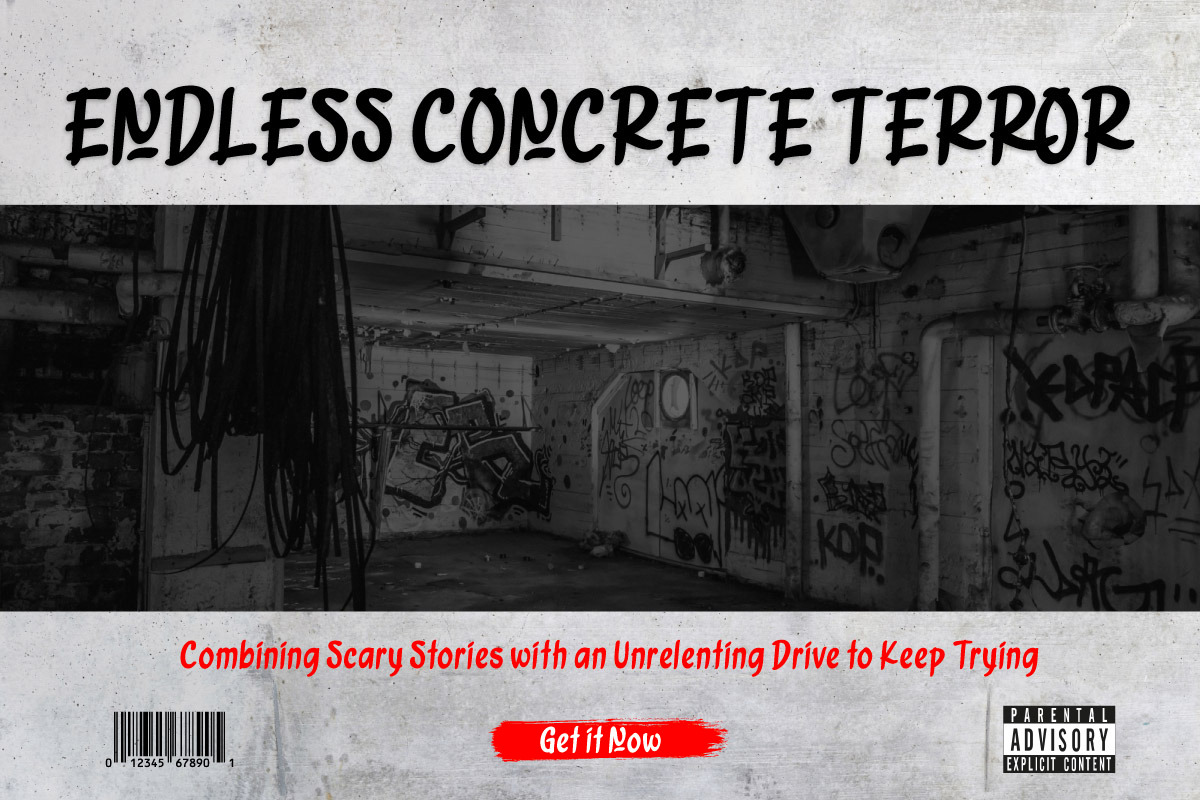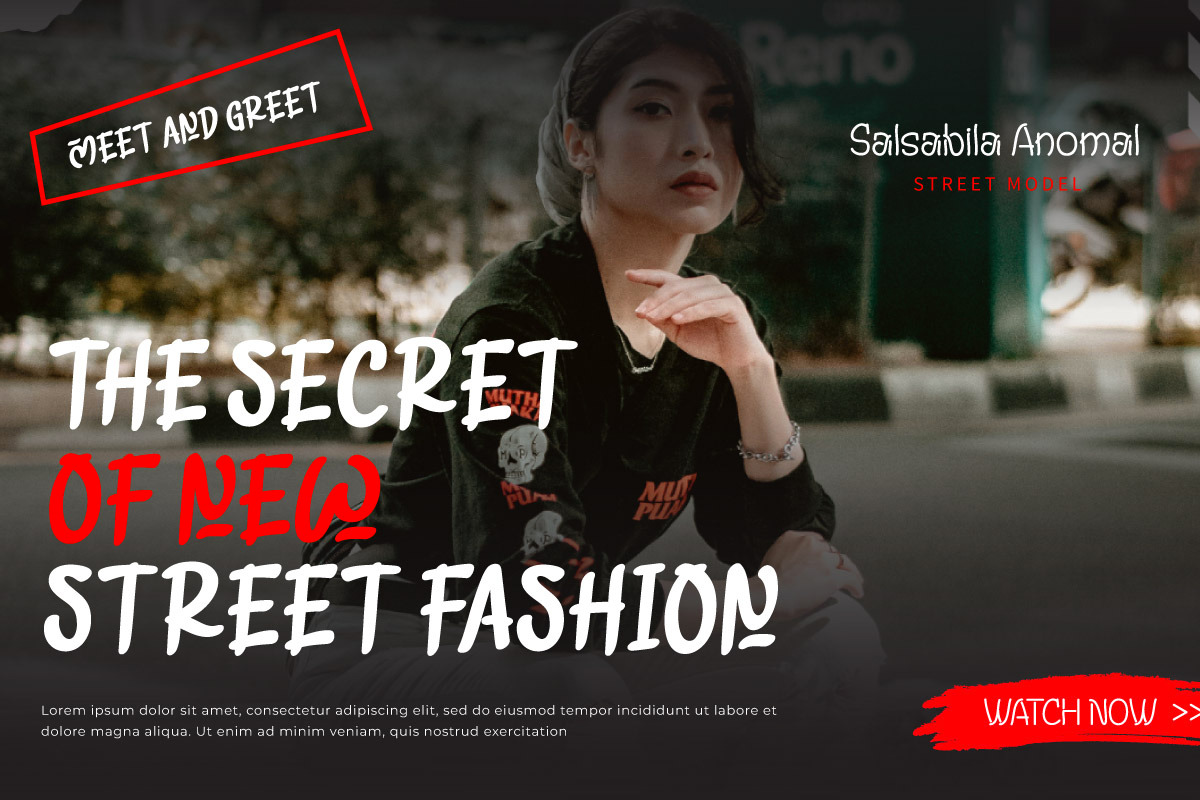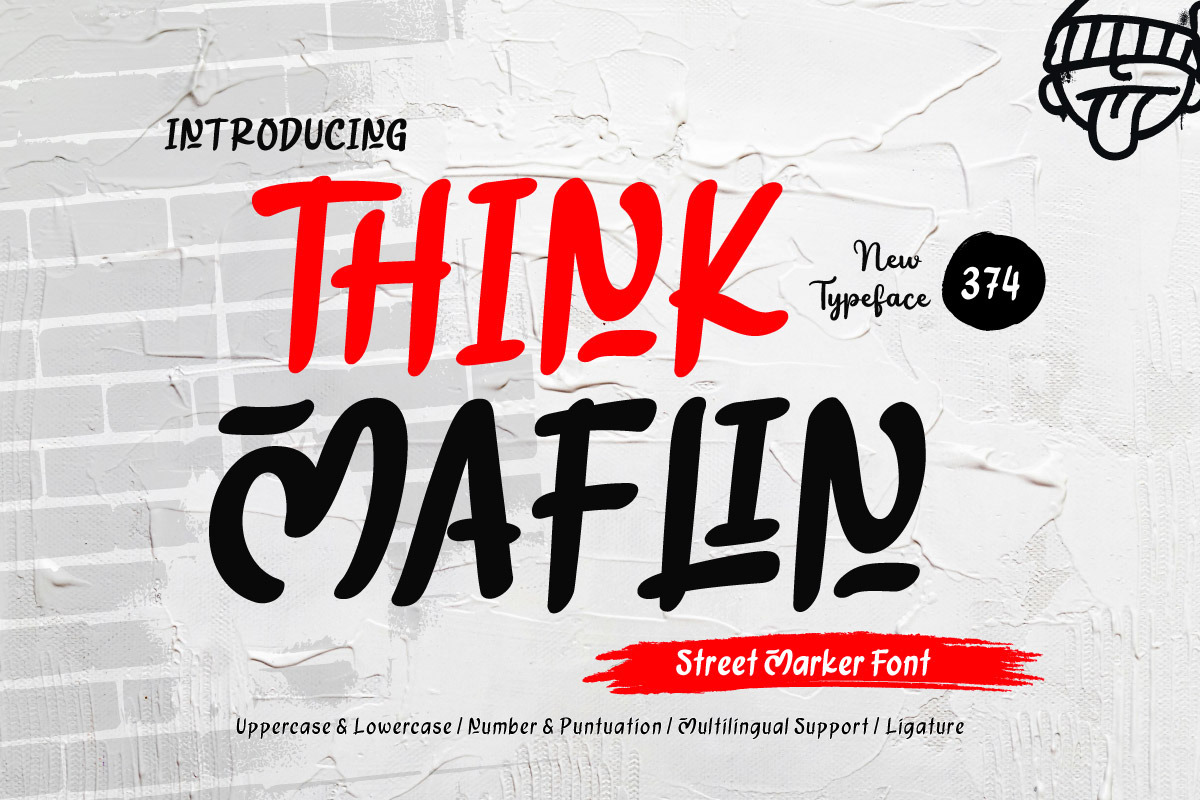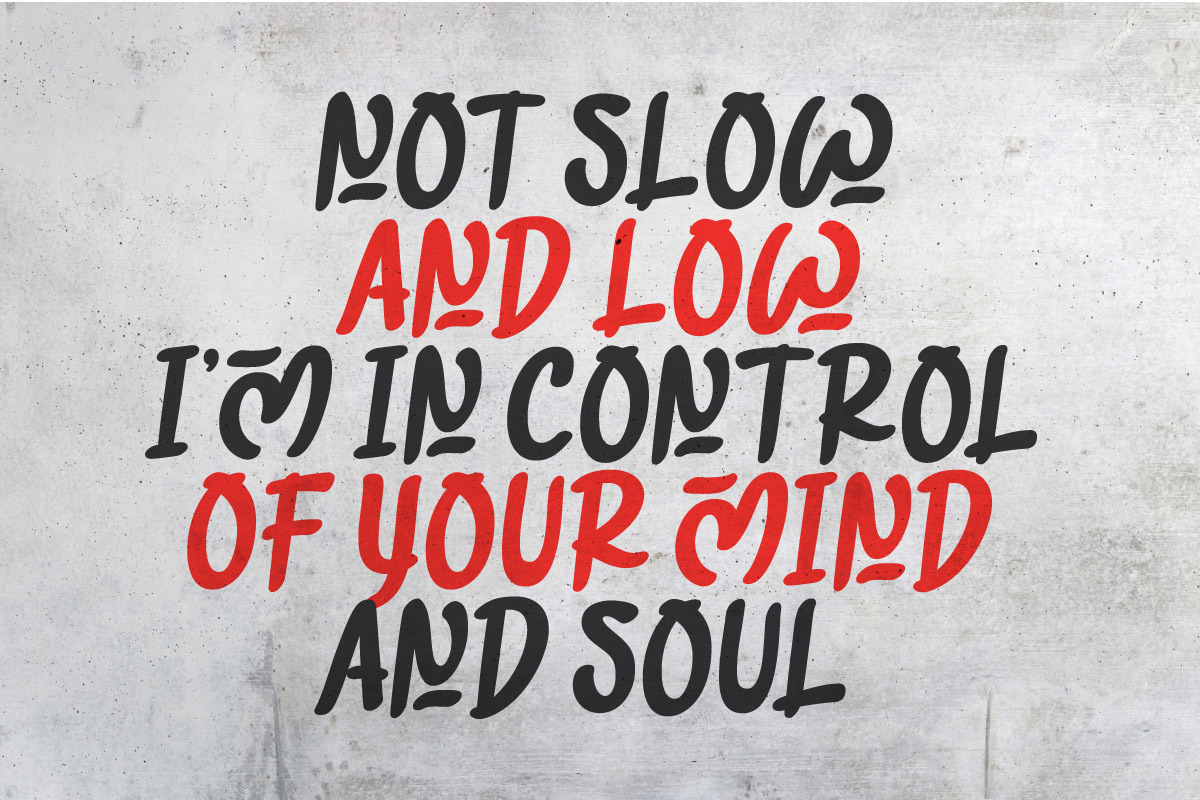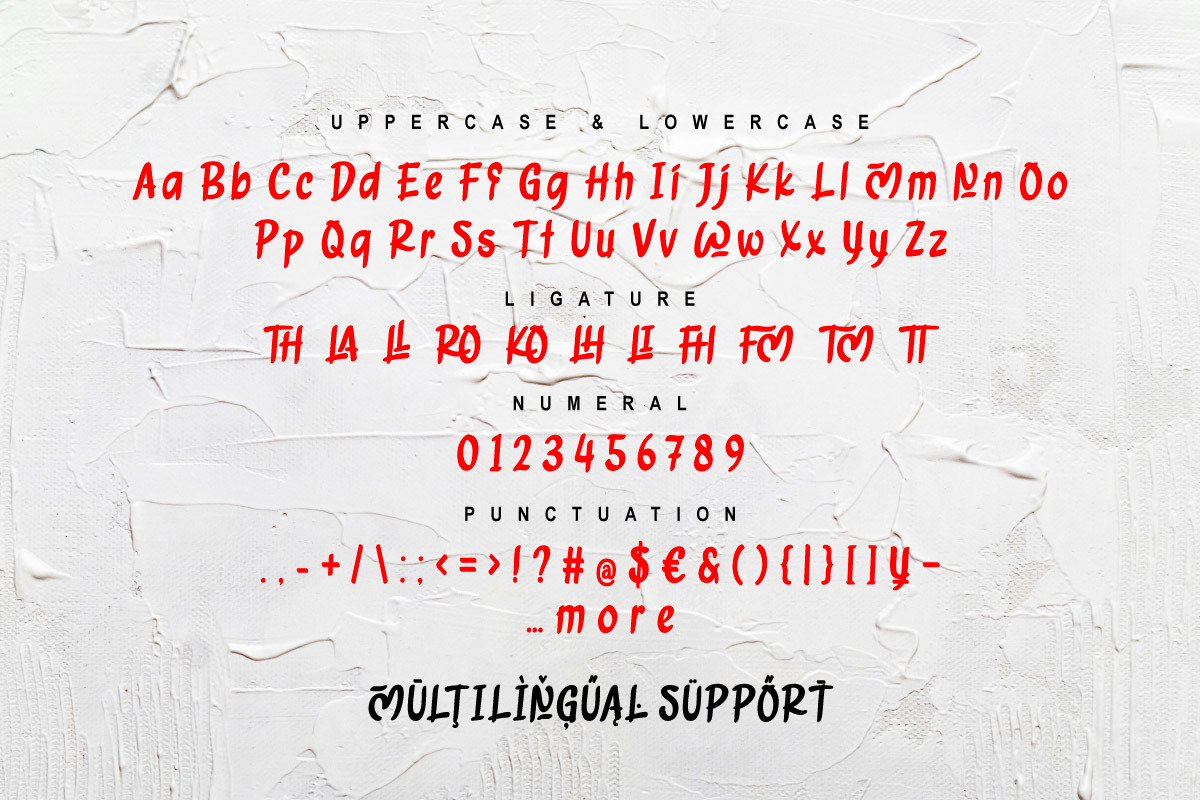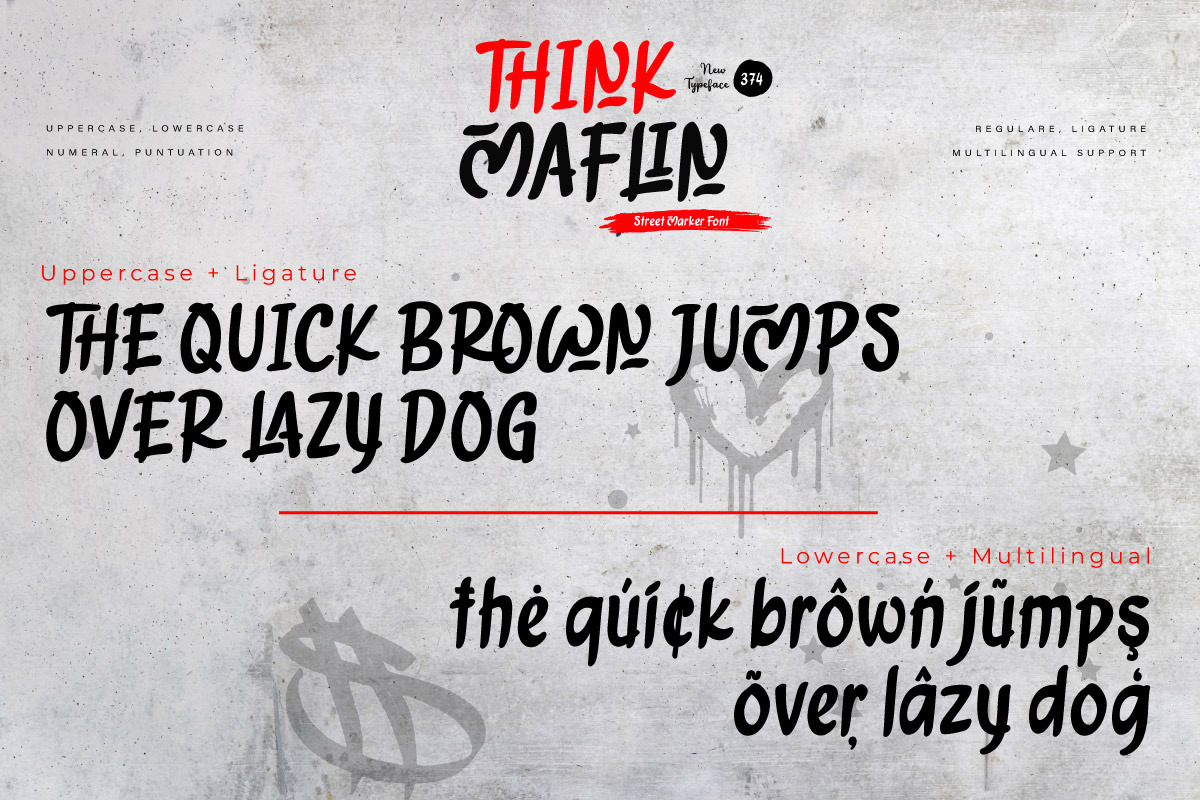
Think Maflin - Street Marker Font
Think Maflin - Street Marker Font captures the authentic, raw feel of hand-drawn street markers. With its free-flowing lines and urban edge, this font is perfect for streetwear designs, graffiti-inspired posters, music covers, and anything that needs a casual yet expressive touch. Think Maflin adds a creative, street-style vibe to your projects, giving them an artistic, spontaneous feel.
Infuse your designs with the rebellious energy of street art using Think Maflin.